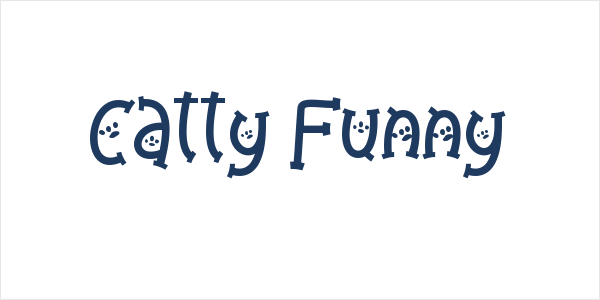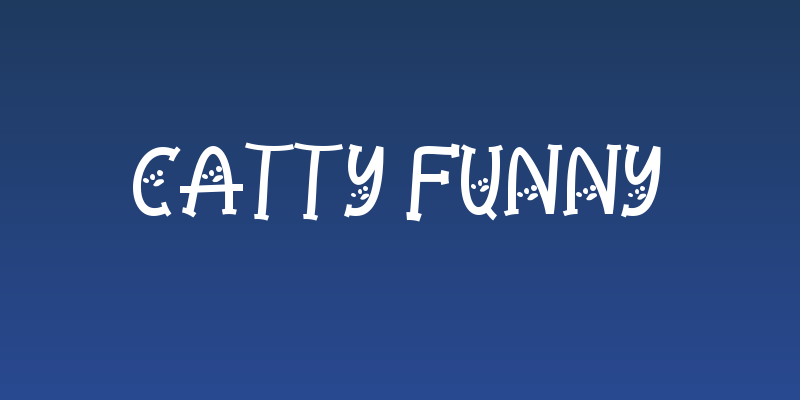
Catty Funny Font
Catty Funny Description
This font features a playful and whimsical design, characterized by its unique and quirky letterforms. Each character is crafted with a sense of humor and creativity, making it stand out with its distinctive style. The font's strokes are varied, with some letters exhibiting exaggerated curves and others showcasing unexpected angles, adding to its overall charm. The playful nature of the font is further enhanced by its irregular baseline, giving it a lively and animated appearance. This font is perfect for projects that require a touch of fun and personality, making it ideal for children's books, playful branding, and creative invitations.
A whimsical and playful font with quirky, animated letterforms from Easter fonts.
- ( Catty Funny is a cute and unique type of display font. The decoration in this font is very easy to use, because it has been specially designed so that it is easy to use. This font is perfect for promoting pet food, for writing posters, mugs, t-shirt desig FREE )
- Proposed Projects: Children's books, playful branding, creative invitations, greeting cards.
- Overall Style: Playful, Whimsical
- Use Case: Headlines, Logos, Creative projects